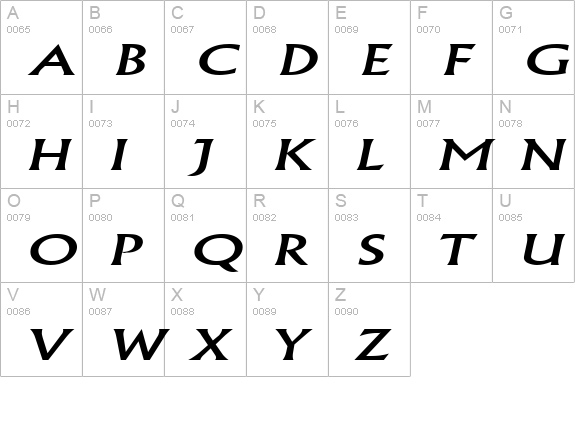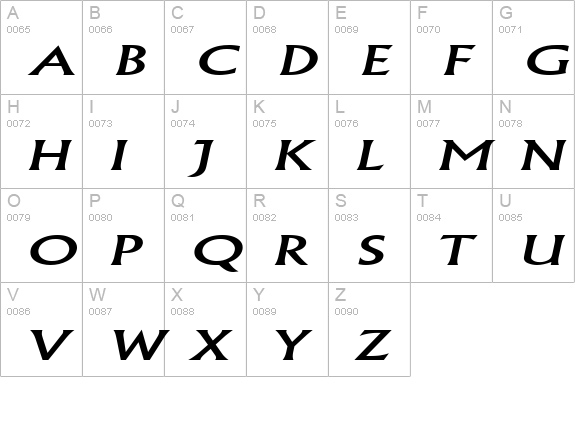
Flair Extended Italic is a distinctive, extended-width, italic variant in the Flair typeface family \xE2\x80\x94 well suited to design and typography projects.
Introducing Flair Extended Italic font, a sleek and elegant typeface designed to make your text stand out with a touch of sophistication. This font exudes a sense of style and modernity, perfect for projects that require a refined and contemporary look. The italicized form adds a dynamic and fluid feel to your designs, making them captivating and engaging to the eye. What's even better is that Flair Extended Italic font is available for free download at FontsMarket.com. Yes, you read that right - you can enhance your projects with this exquisite font without spending a penny! Whether you're working on branding materials, invitations, posters, or any other creative project, Flair Extended Italic font is sure to elevate your designs to the next level. Don't miss out on this opportunity to add a touch of flair to your typography - download Flair Extended Italic font today and let your creativity shine!